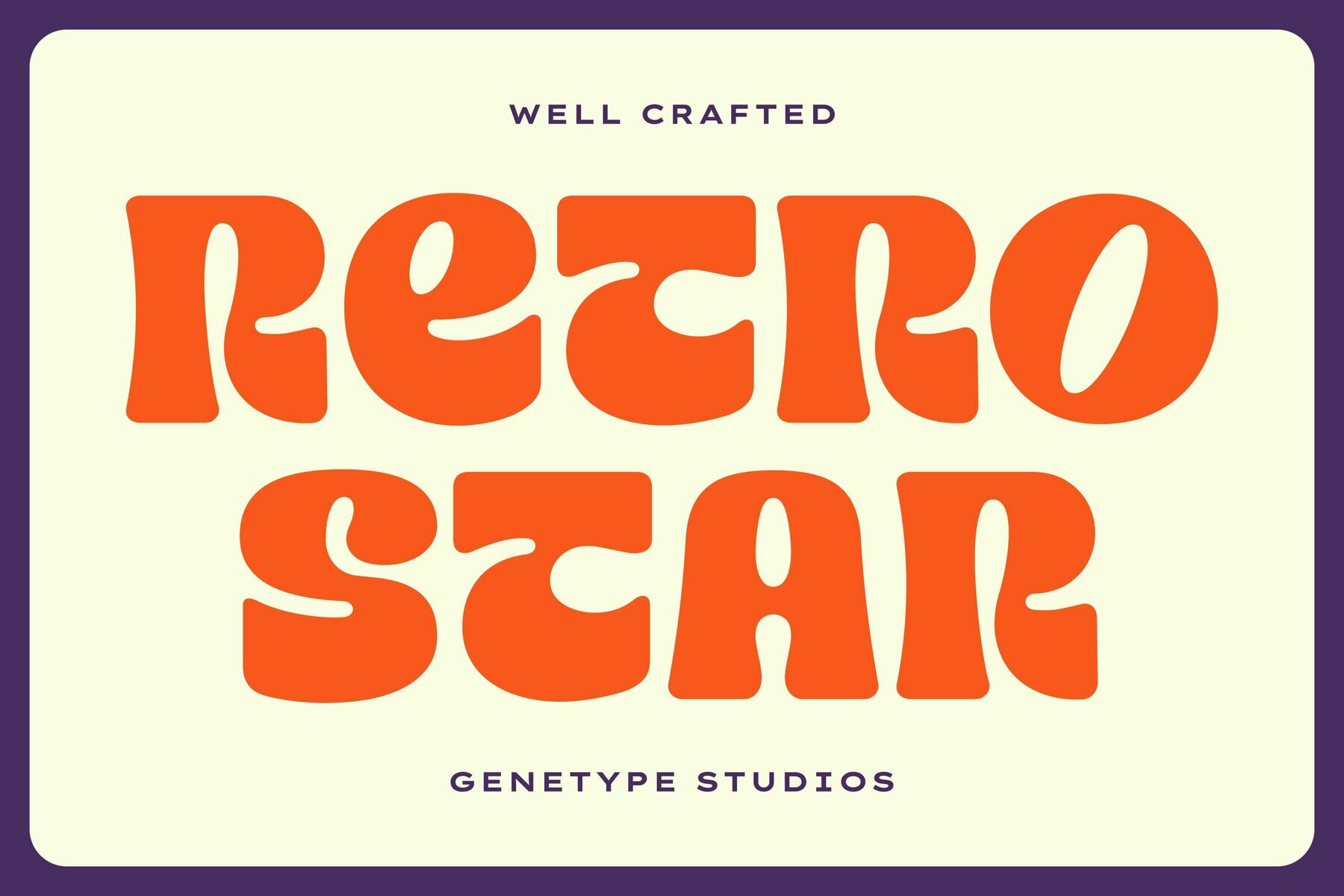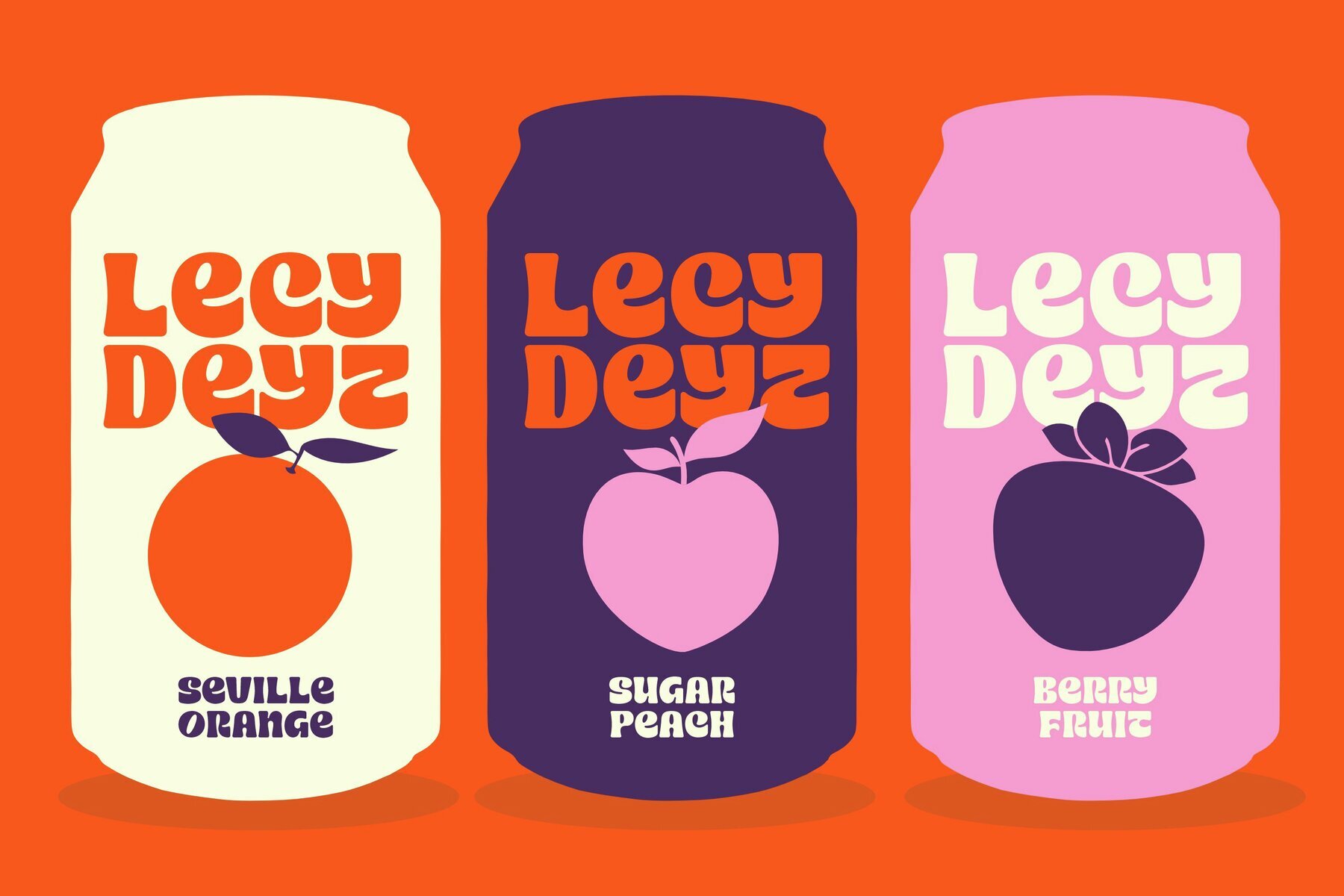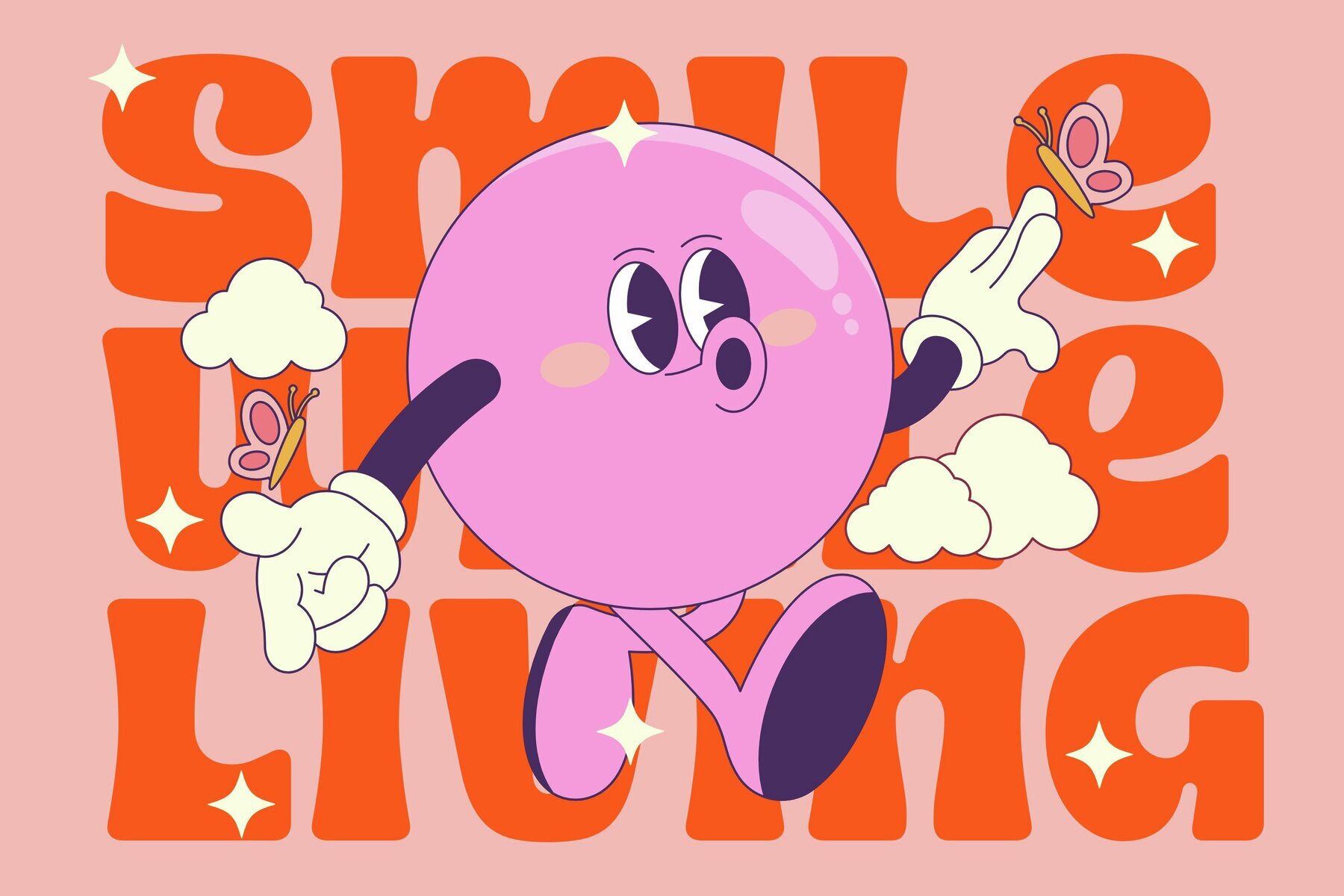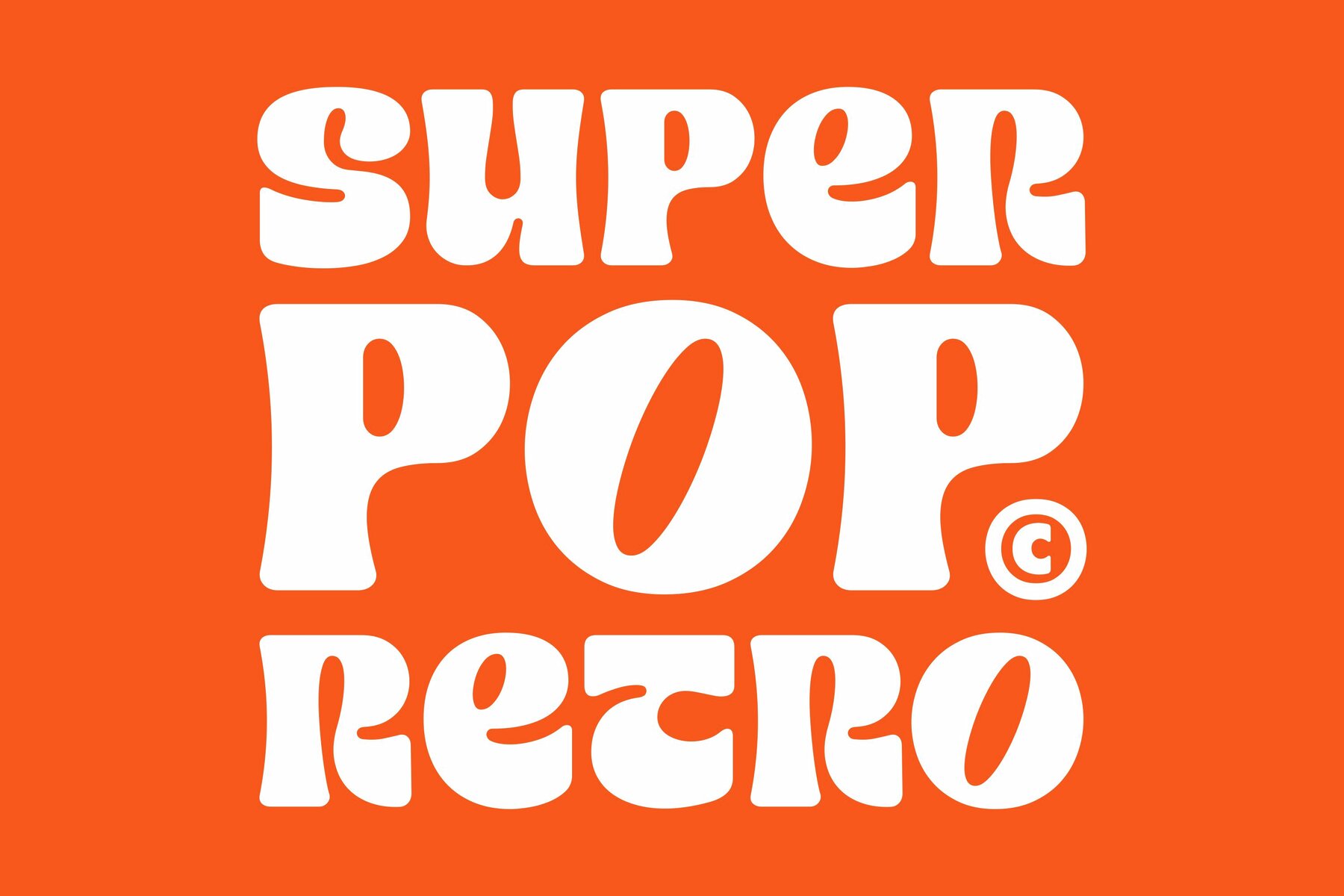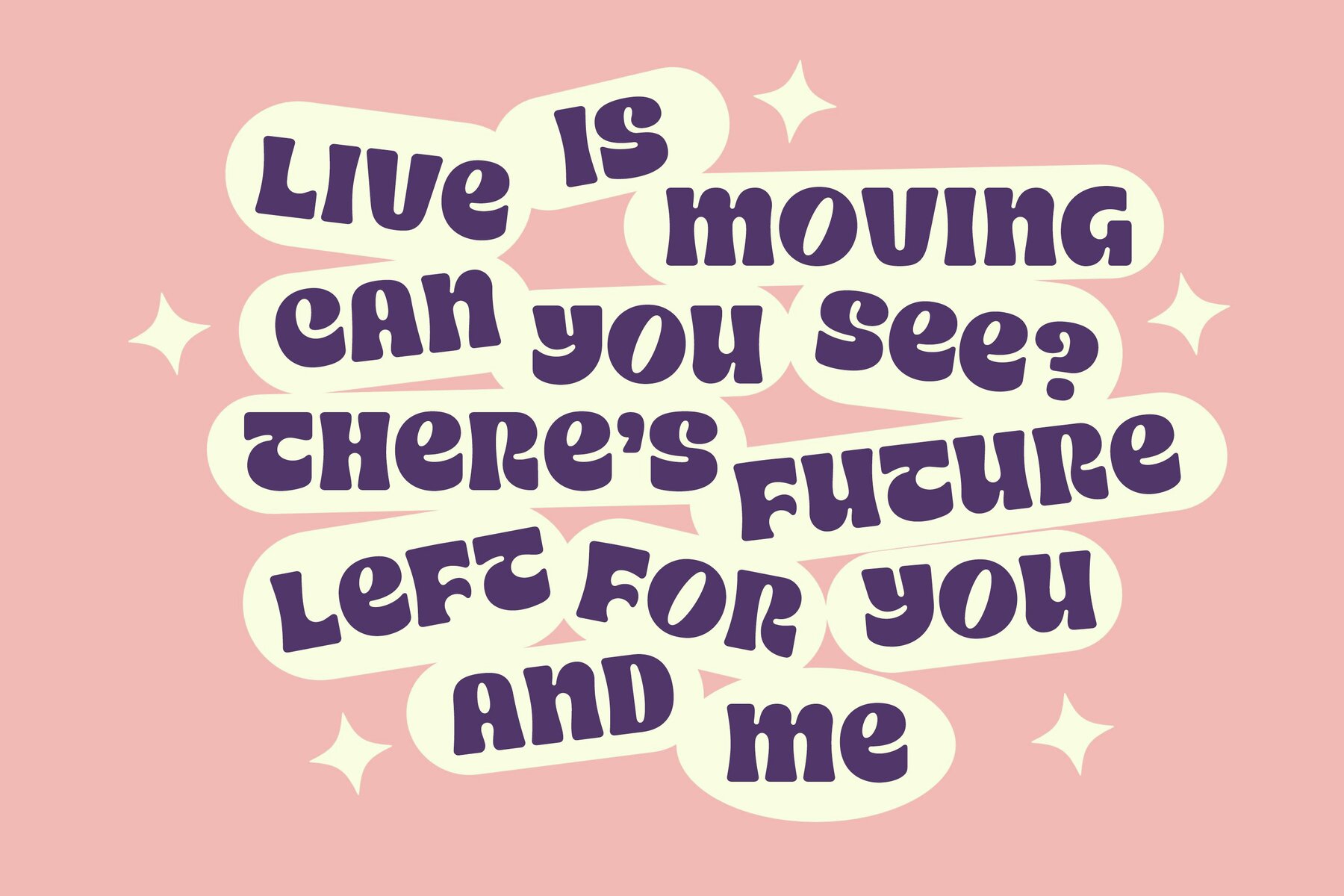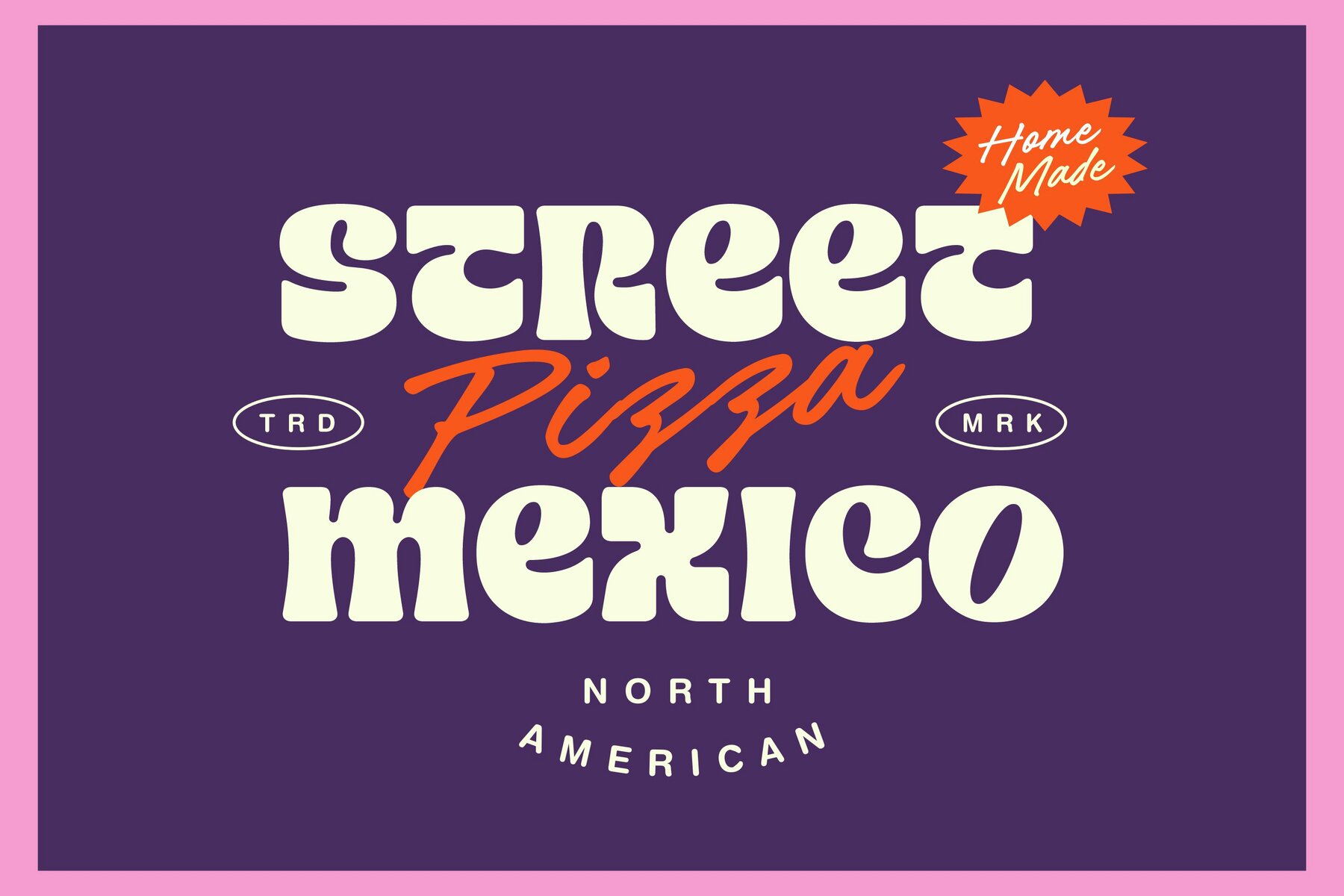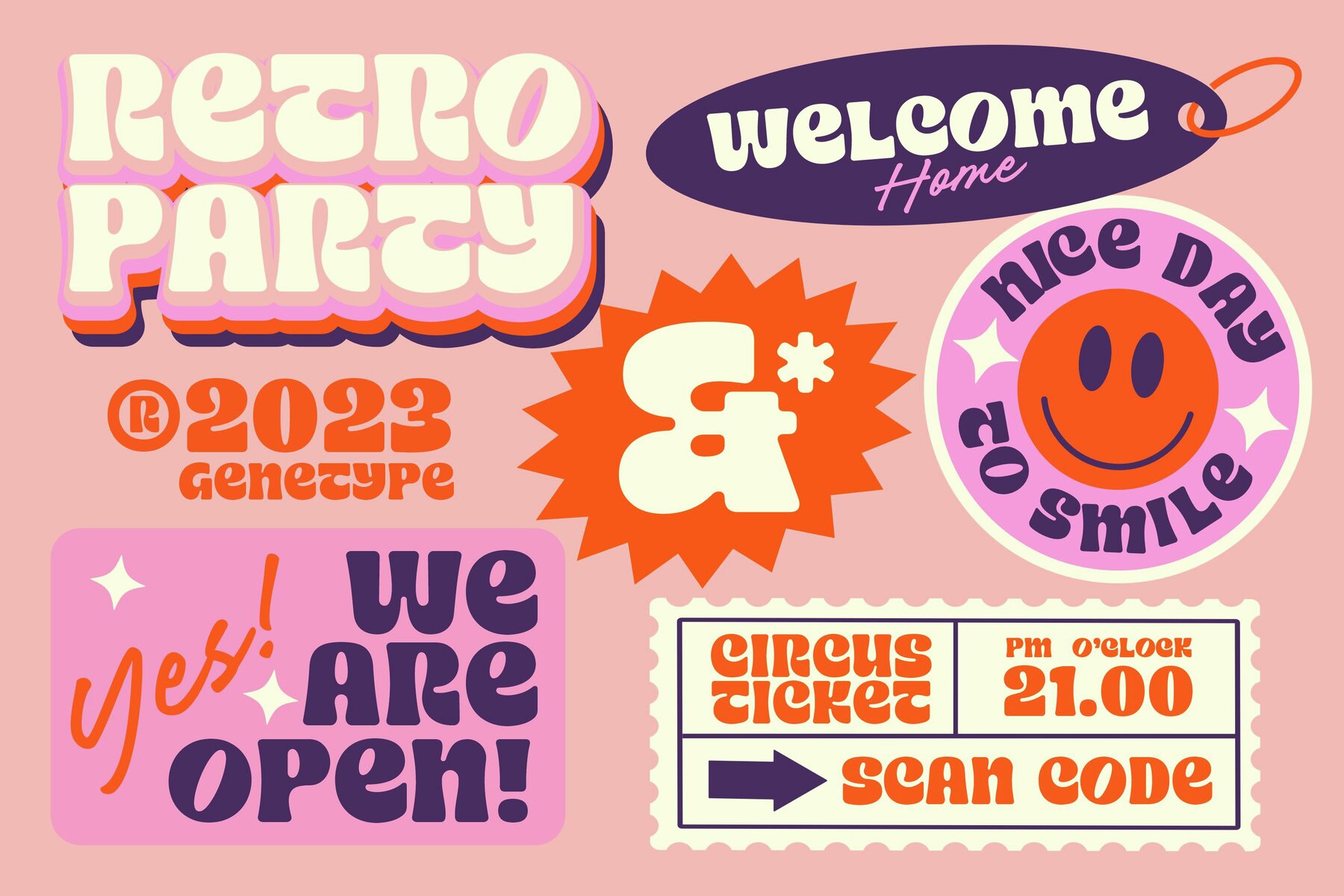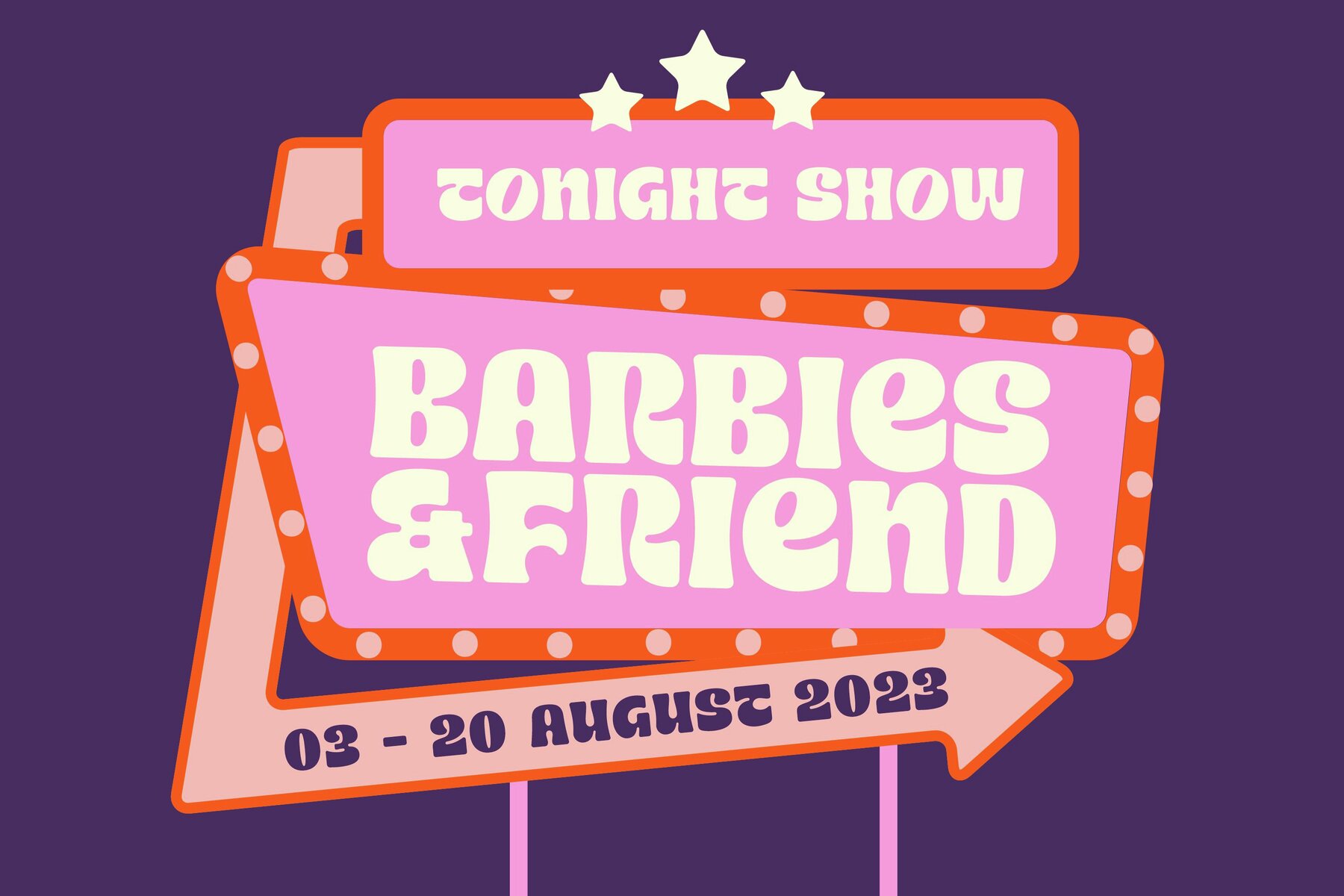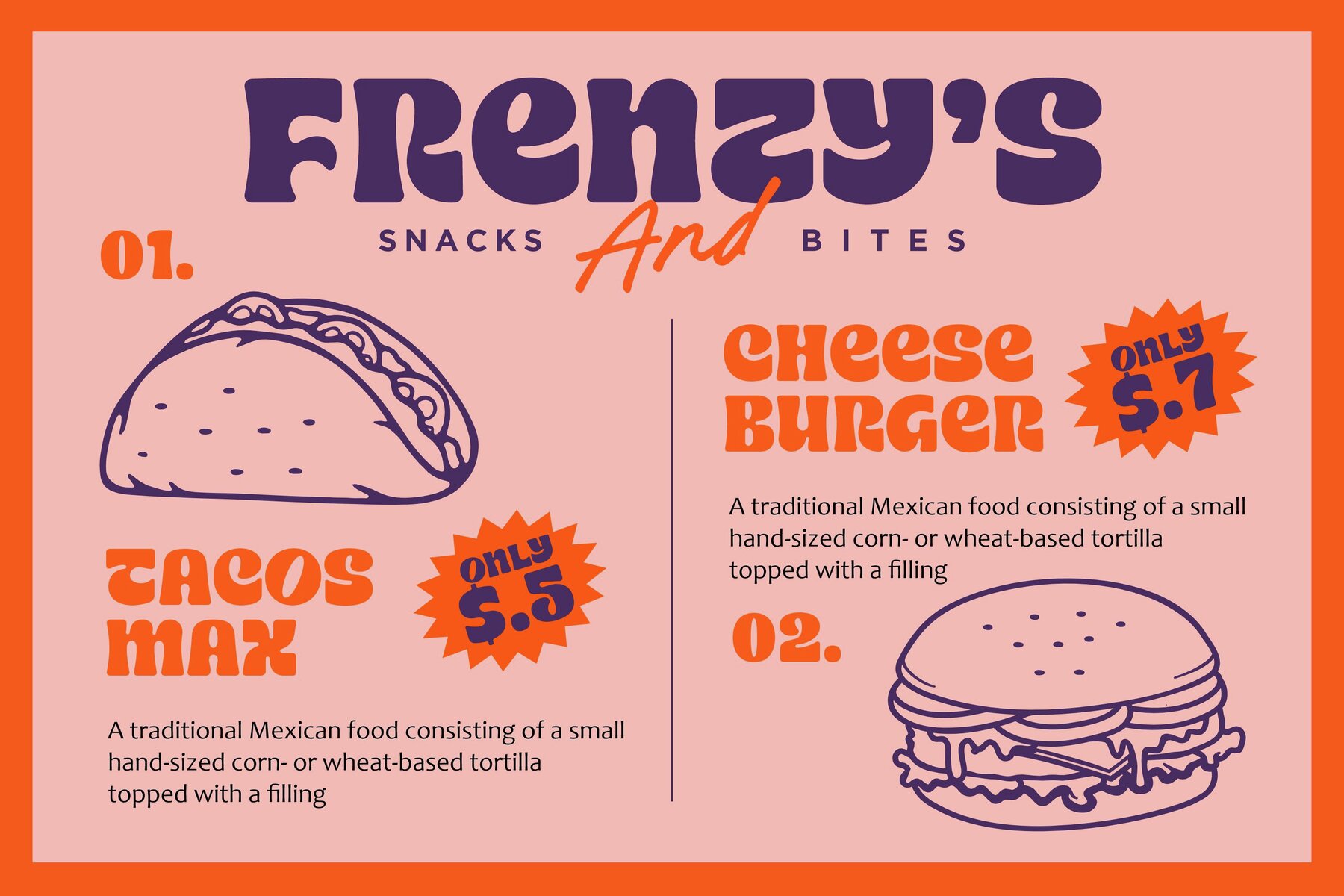
Retro Star 1
Step into a time capsule with Retro Star, a vintage-themed typeface that radiates a sense of nostalgia. Designed to take you back to the elegance of days gone by, Retro Star adds an air of authenticity to your projects. Whether you're designing posters or brand logos, this typeface provides a timeless charm that resonates with the aesthetics of yesteryears.
Retro Star is perfect for creating designs that evoke the past while fitting seamlessly into contemporary projects. Its unique character and vintage appeal make it an ideal choice for anything from advertising materials to bespoke invitations. Dive into the allure of Retro Star and bring an element of classic sophistication to your next design.